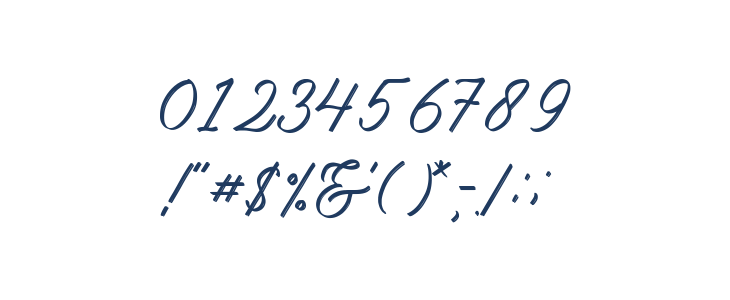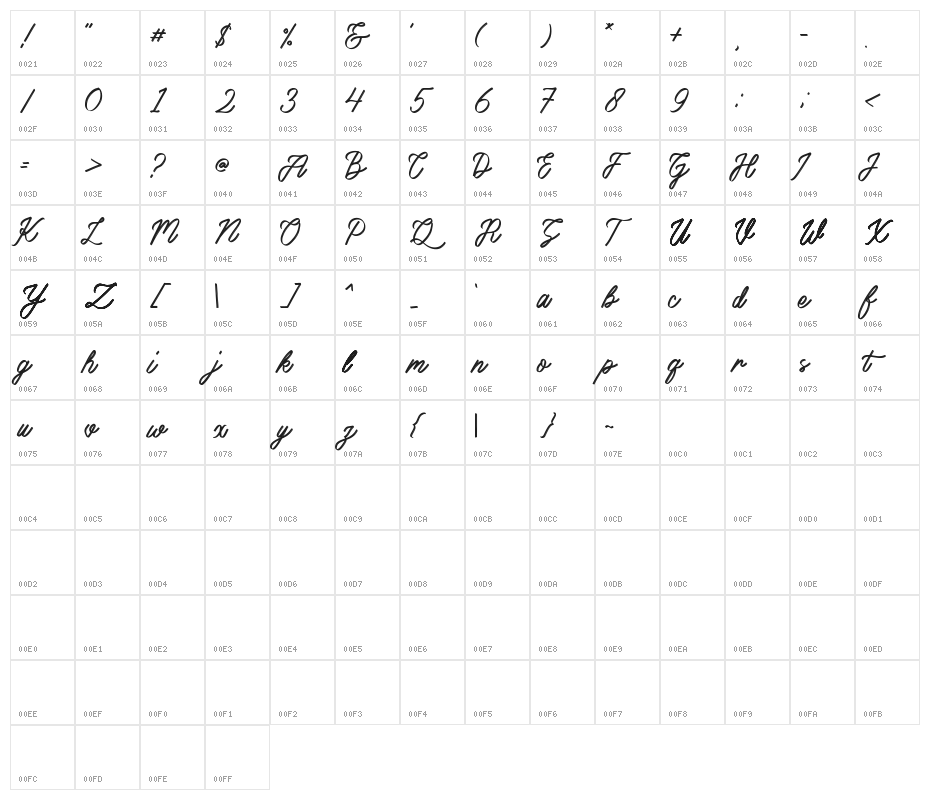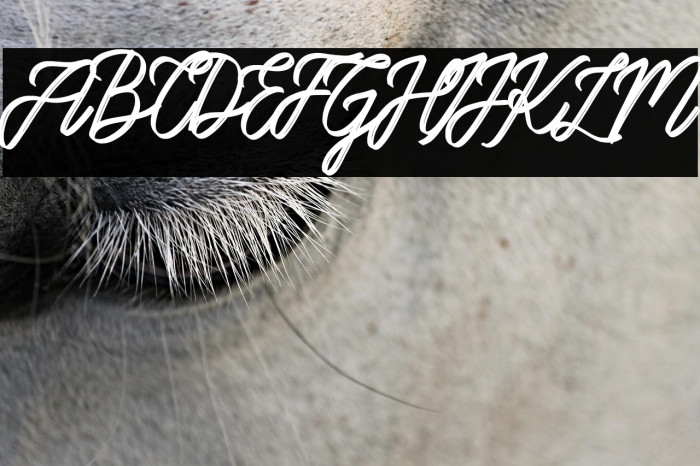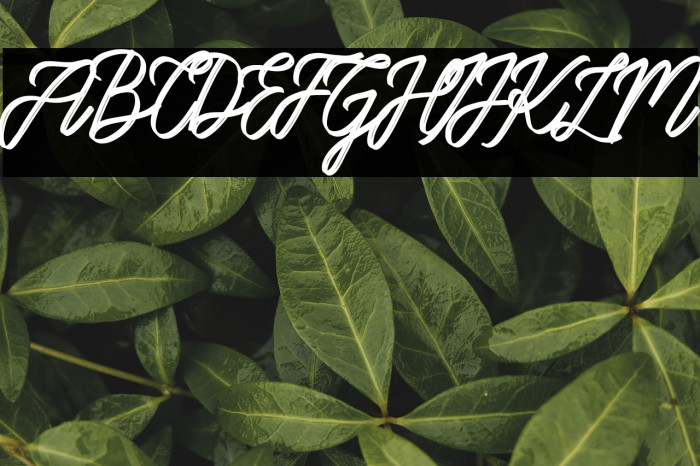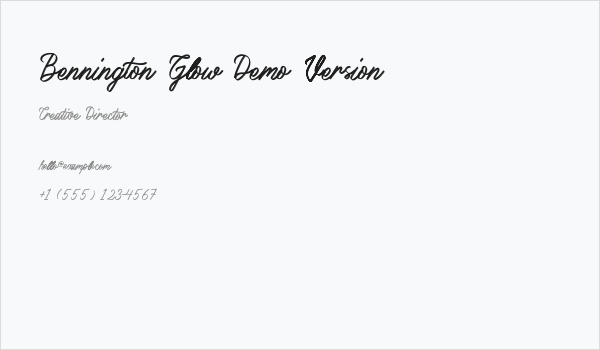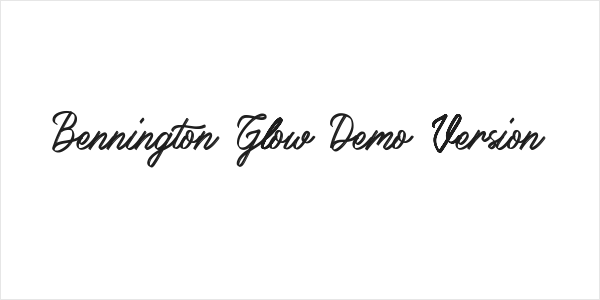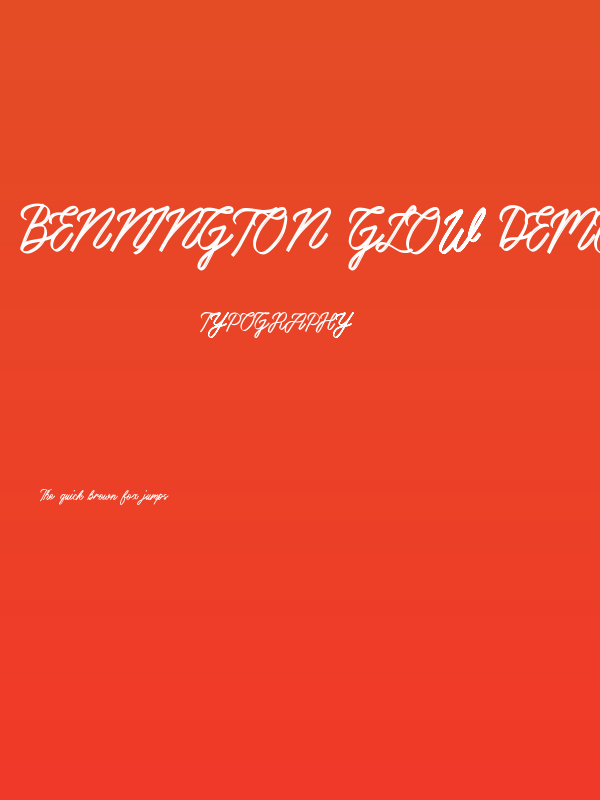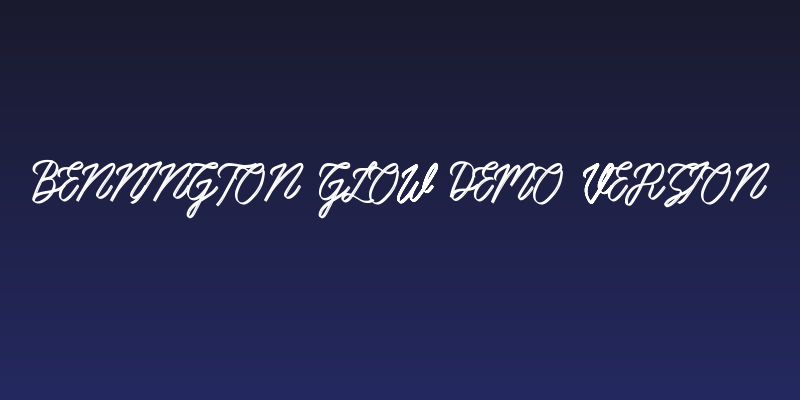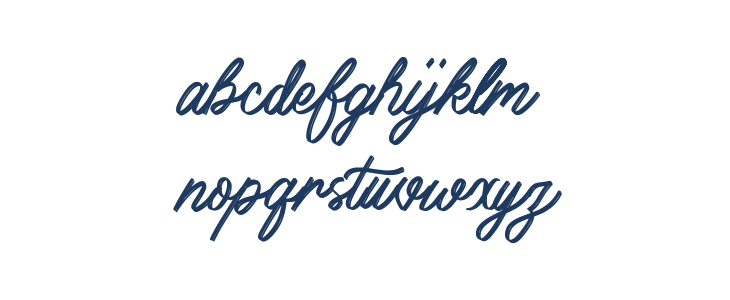
Bennington Glow Demo Version Font
Bennington Glow Demo Version Description
This font features a flowing, cursive style with elegant, interconnected letters that give it a sophisticated and artistic appearance. The uppercase letters are bold and prominent, while the lowercase letters maintain a consistent flow, enhancing readability. The numerals are distinct and maintain the cursive theme, adding a unique flair to numerical expressions. Special characters are seamlessly integrated, maintaining the overall aesthetic. This font is perfect for projects that require a touch of elegance and creativity, such as invitations, branding, and artistic designs.
| Overall Style | Elegant, Artistic |
| Proposed Projects | Ideal for wedding invitations, branding, artistic projects, and elegant designs. |